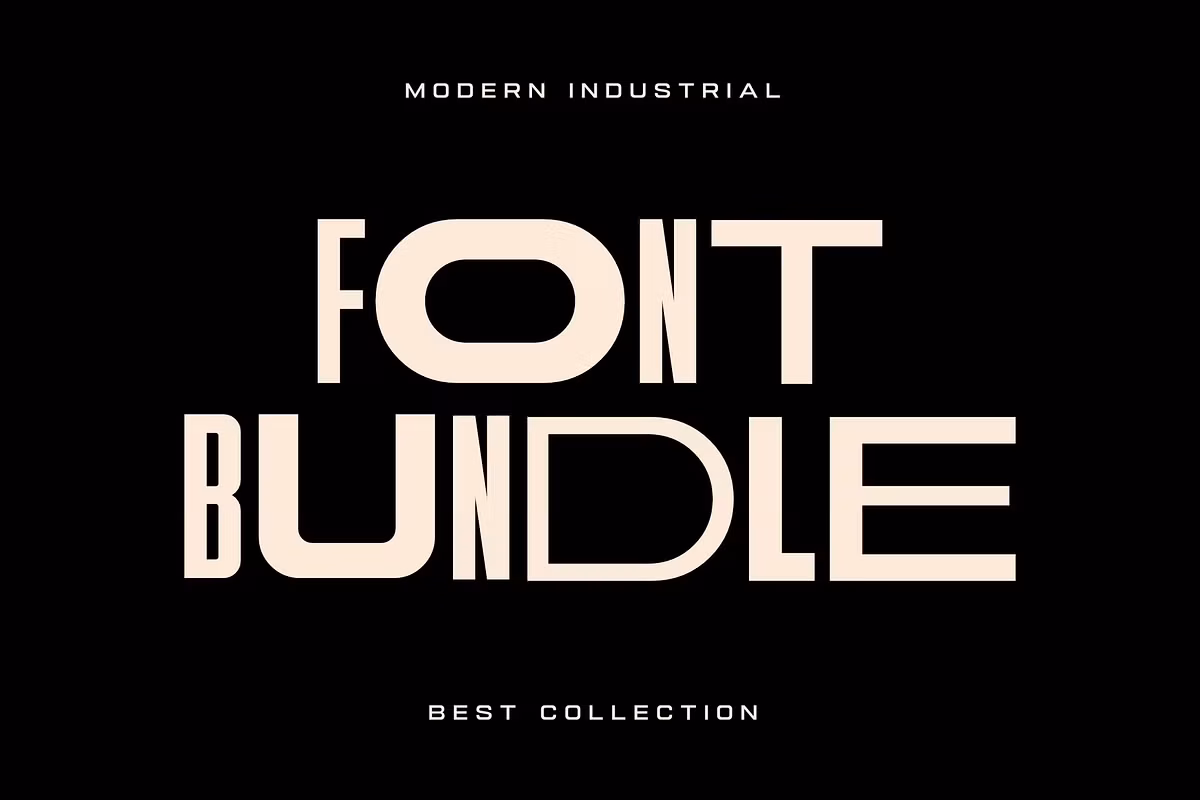
Modern Industrial Font Bundle Free Download
Modern Industrial Font Bundle Free Download is a carefully curated collection of strong, geometric fonts with an industrial edge. Featuring bold, modern letterforms and a minimalist design, this bundle is perfect for branding, logos, signage, posters, packaging, and any project that requires a sleek, contemporary look.
The fonts in this bundle are versatile and can be used for both digital and print designs. Their industrial-inspired aesthetics make them ideal for projects in tech, architecture, manufacturing, or any creative venture that needs a modern, utilitarian feel.